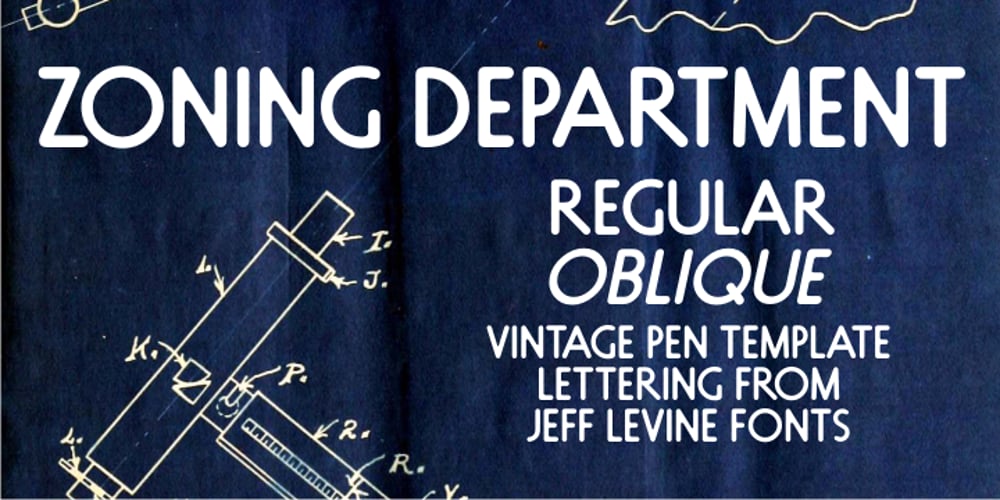
Zoning Department JNL
Zoning Department JNL font
Zoning Department JNL Font Family was designed by Jeff Levine and published by Jeff Levine. Zoning Department JNL contains 2 styles and family package options. A 1930s-era sign lettering template set manufactured for the National Carbon Company by Wrico (The Wright-Regan Instrument Company) yielded the familiar lettering that comprises Zoning Department JNL. This rounded-end typestyle was also widely used on architectural drawings, signage, blueprints and the like.